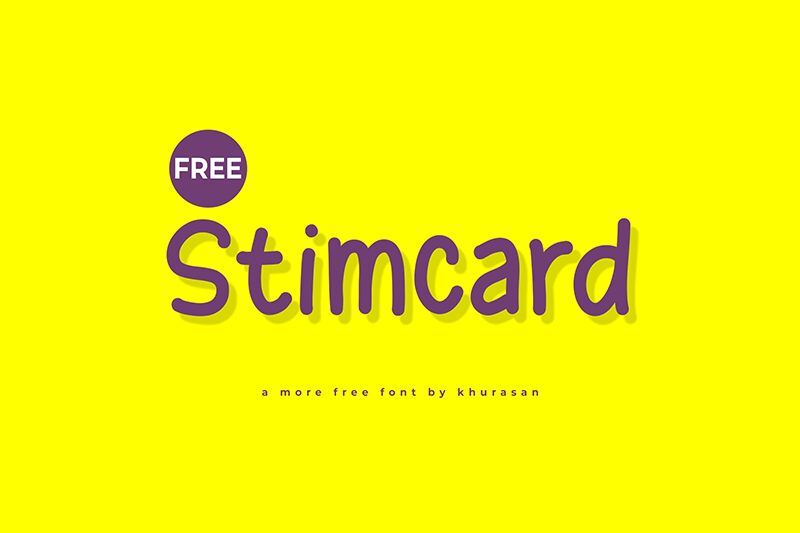
Stimcard
Stimcard font by Khurasan is a free handwritten font with a straightforward and friendly appearance. It features modern typography with an approachable design that easily captivates the viewer’s attention without being overwhelming. Render your texts using this casual resource that boasts legibility, creative appeal, and exquisite letters.